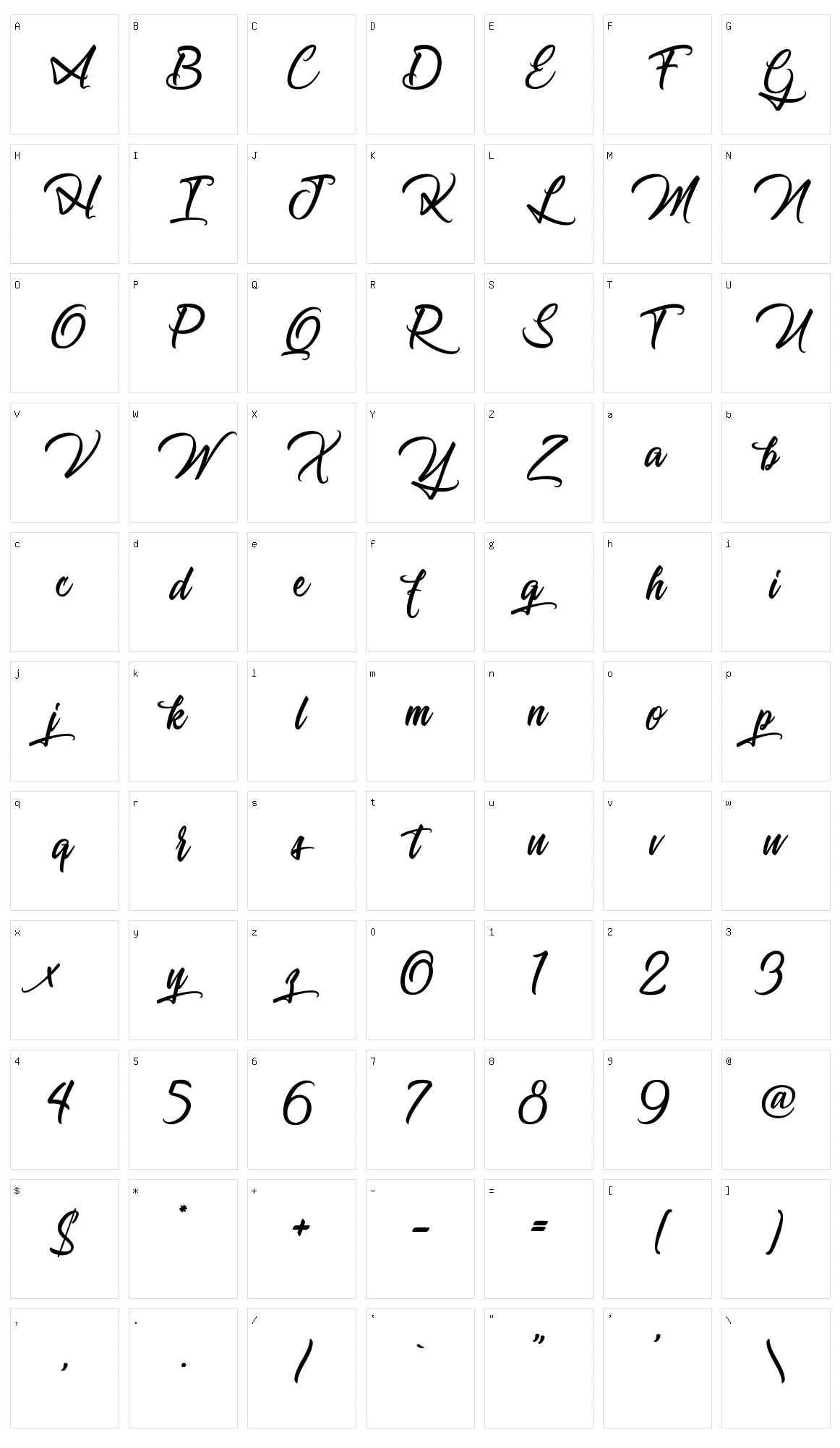
The free font Journey to Thailand is carefully designed by Typhoon Type? - Suthi Srisopha, showcasing a thoughtful balance of creativity and usability and falls under the Script font style. When you download the ZIP file, it contains only 1151.66 KB of font files, making it lightweight and quick to download. Please review the license details below to understand permitted usage and distribution rights. If license information is not available, we recommend using this font for personal projects only or contacting the author directly for commercial usage permissions.